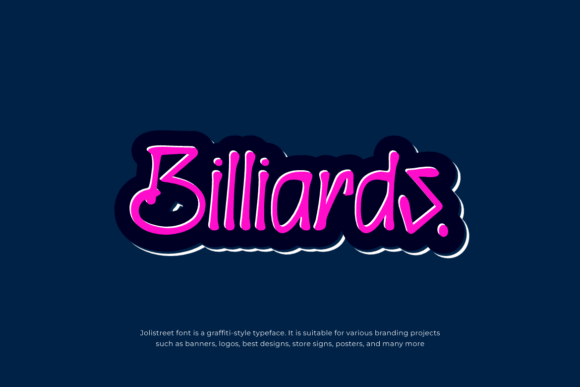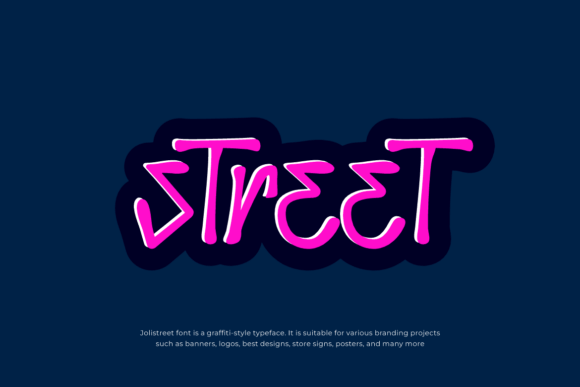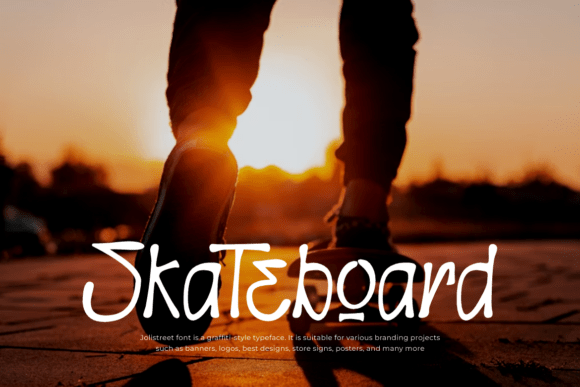
Introduction to Jolistreet Font
Have you ever been working on a creative project, staring at a blank canvas, and suddenly an idea hits you like a ray of sunshine? That’s exactly what happened when I first laid eyes on the Jolistreet Font. Its vibrant and playful design immediately caught my attention, and I knew I had to dive in and explore its possibilities.
As a designer, I’m always on the lookout for high-quality design resources that can elevate my work and make it stand out. And let me tell you, the Jolistreet Font is a game-changer. With its transparent background and versatility, it’s perfect for a wide range of creative projects, from logos and graffiti designs to digital displays and more.
Key Features of Jolistreet Font
- High-quality, unique design suitable for creative projects requiring a modern aesthetic.
- Transparent background, allowing for effortless layering and customization in your design projects.
- Includes a range of glyphs and characters, making it an excellent choice for creative projects that require a wide character set.
- Designed to be highly legible, making it perfect for use in digital and print media, including posters, flyers, and brochures.
Honest Review: Jolistreet Font
I recently stumbled upon the Jolistreet Font, and I must say it’s a great addition to any design resource. This free download is perfect for creative projects that require a touch of sophistication.
What works well is the font’s versatility. It’s available in several weights, making it easy to use for both body text and headings. The high quality of the font is also noticeable, especially when using it with a transparent background.
The design is clean and modern, making it an excellent choice for a wide range of applications, from branding to digital products. I also appreciate the fact that it’s a free download, making it accessible to designers of all levels.
What I like:
- ✨ Versatility in weights and styles
- ✨ High quality design
- ✨ Perfect for branding and digital products
What I don’t like:
- ⚠️ Limited support for languages other than Latin
- ⚠️ Not suitable for very complex designs
Overall, the Jolistreet Font is a solid choice for any designer. While it may not be perfect, its strengths far outweigh its limitations, making it a valuable addition to any design library.
Tips for Getting the Most Out of Jolistreet Font
To get the most out of Jolistreet Font, experiment with different font sizes, colors, and combinations. Use it in creative ways, such as overlaying text on images or creating custom graphics.
Jolistreet Font is ideal for a variety of use cases, including social media graphics, presentations, and documents. Its high-quality design and transparent background make it a versatile design resource for any creative project.